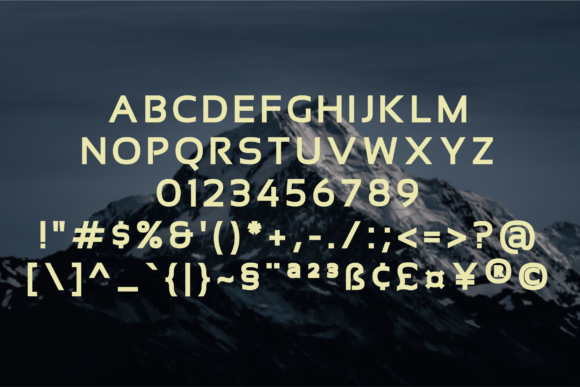
Introduction to Horelios Extra Black Font
Have you ever been working on a creative project, and the perfect font just slipped through your fingers? You envisioned a bold, eye-catching headline, but nothing seemed to match the intensity you had in mind. That’s when you stumble upon Horelios Extra Black Font – a game-changing, all-caps sans serif font that’s sure to elevate your designs to the next level.
Whether you’re a seasoned pro or just starting out, Horelios Extra Black Font is a must-have in your design arsenal. Its unique blend of style and functionality makes it an ideal choice for any creative project, and its high-quality design ensures that your work will stand out from the crowd.
Key Features of Horelios Extra Black Font
- High-quality font with a transparent background, ideal for creative projects requiring a sleek and modern design.
- Designed to be highly legible, with a large x-height and clear letterforms, making it perfect for body text and headings.
- Unique characteristics include its bold and striking appearance, making it an excellent choice for titles, headings, and emphasis in creative projects.
Honest Review: Horelios Extra Black Font
- High quality and sleek design, perfect for modern creative projects.
- ⚠️ The font may not be suitable for projects that require a lot of text editing, as it can be quite heavy.
- ⚠️ Some users may find the font to be too bold, which can make it difficult to read in certain contexts.
Design Tips
To get the most out of the Horelios Extra Black Font, use it on a transparent background to create a high-contrast design. This font is perfect for creative projects that require a bold and edgy look. You can also pair it with other fonts to create a unique and eye-catching design.
The Horelios Extra Black Font is commonly used in graphic design, logo creation, and digital art. It’s a great choice for creating a bold and attention-grabbing design that stands out from the crowd.